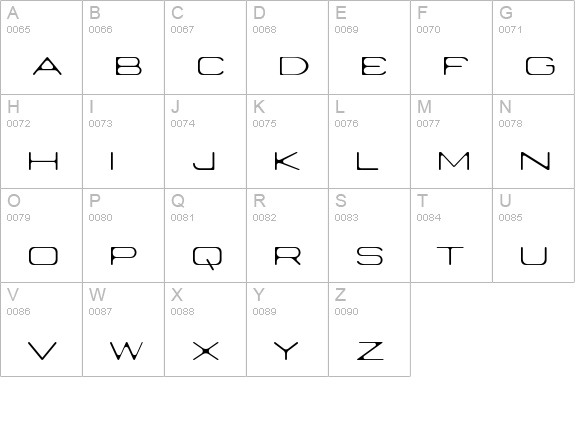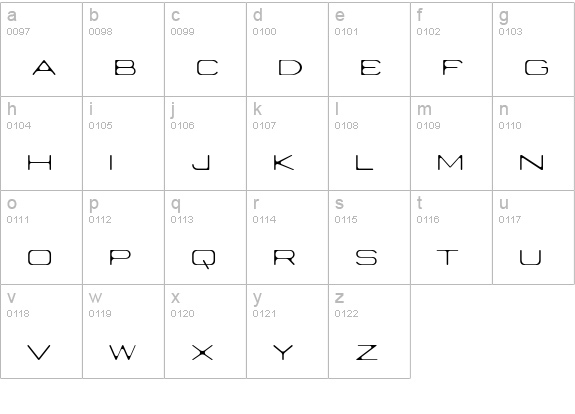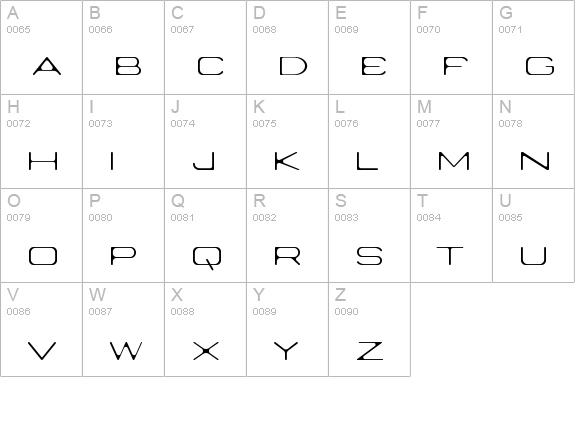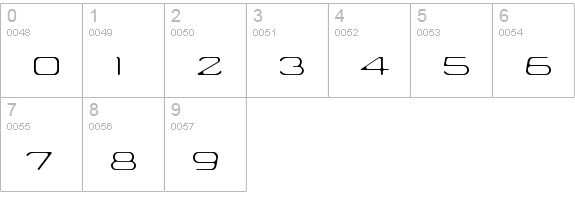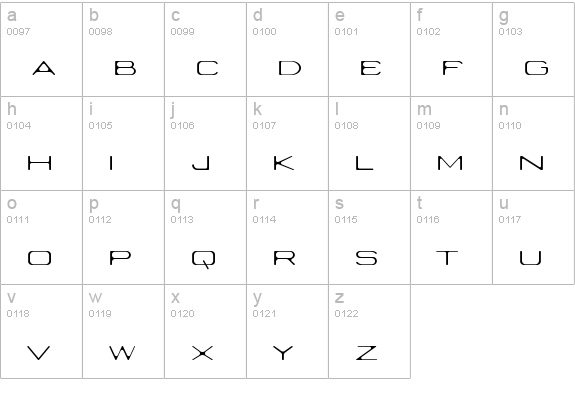
Nedian-ExtraLight is an airy, ultra-refined variant in the Nedian typeface family \xE2\x80\x94 well suited to minimalist headlines and refined display use.
Nedian-ExtraLight is a delicate and elegant font that exudes a sense of sophistication and modernity. With its slender and graceful letterforms, this typeface brings a touch of refinement to any design project. The extra light weight of Nedian adds a subtle and airy quality, making it perfect for creating a sense of lightness and minimalism in your designs. This font is ideal for a wide range of applications, from branding and editorial design to packaging and web design. Its clean lines and subtle curves make it easy to read and versatile enough to use in various design contexts. Whether you're working on a sleek corporate identity or a stylish fashion layout, Nedian-ExtraLight is sure to elevate your design with its understated elegance. Best of all, Nedian-ExtraLight is available for free download at FontsMarket.com. So you can add this beautiful typeface to your collection without any cost. Don't miss out on the opportunity to enhance your designs with the timeless appeal of Nedian-ExtraLight. Download it now and see the difference it can make in your projects!